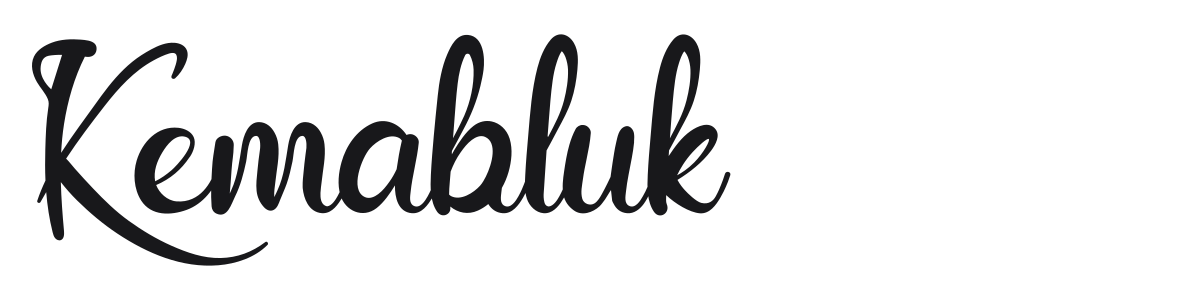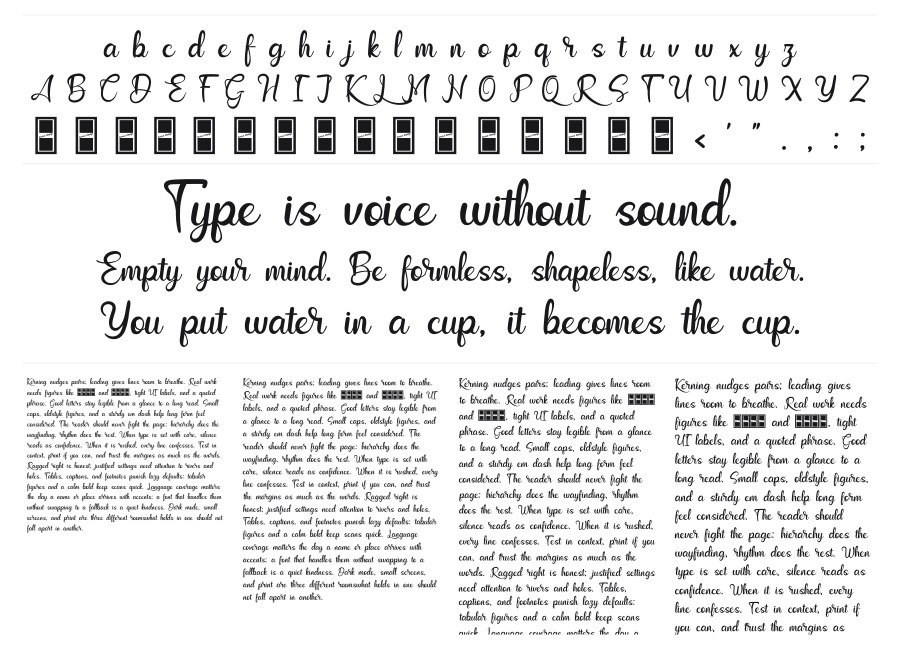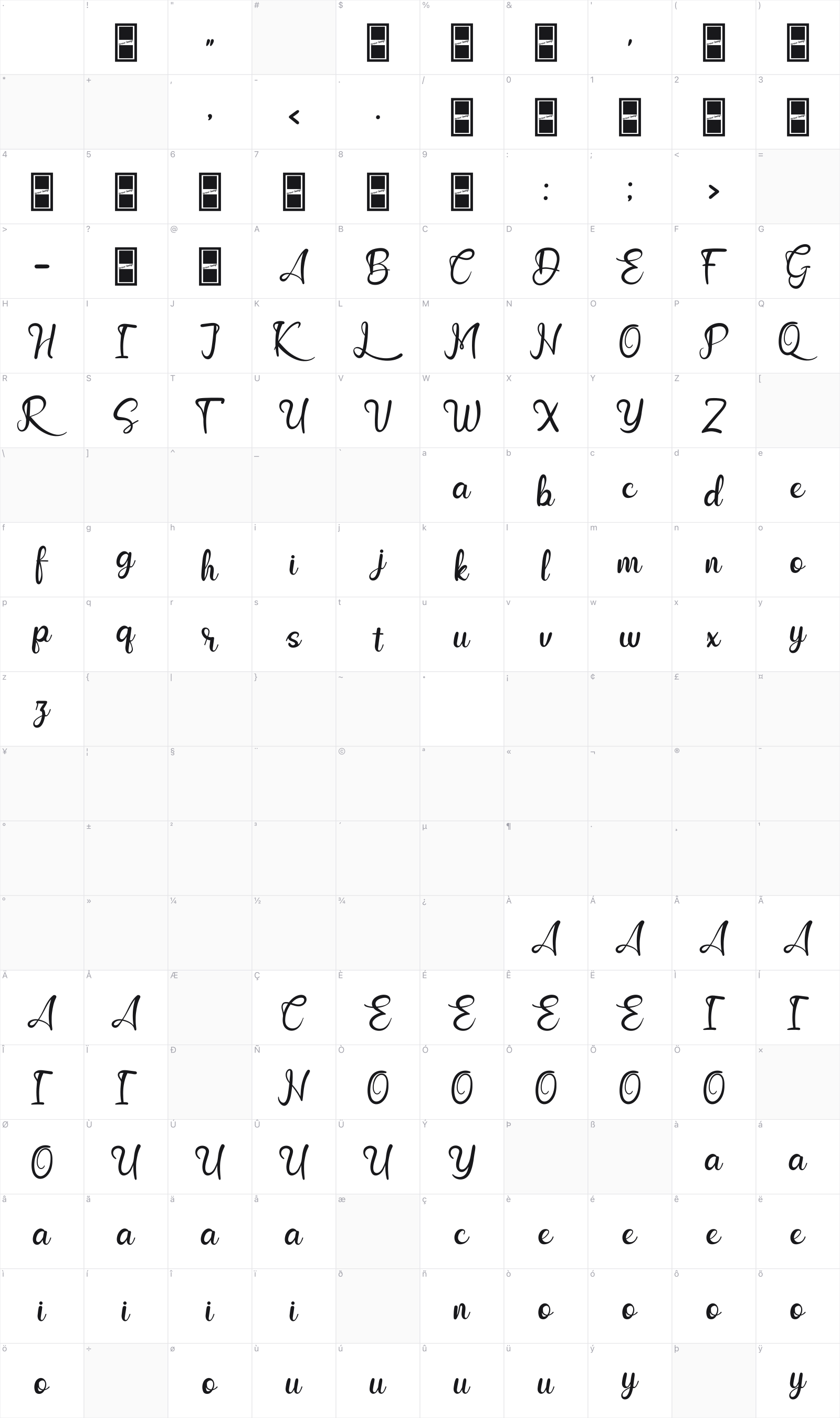
Kemabluk
Kemabluk is a smooth casual script with flowing connections and generous looped descenders that give it an energetic, handwritten feel. The moderate stroke contrast between thick downstrokes and thin hairlines keeps it legible while adding elegance. It works well for wedding stationery, branding, and any project that needs a personal, romantic touch.